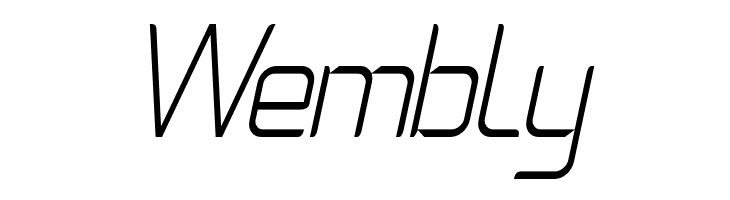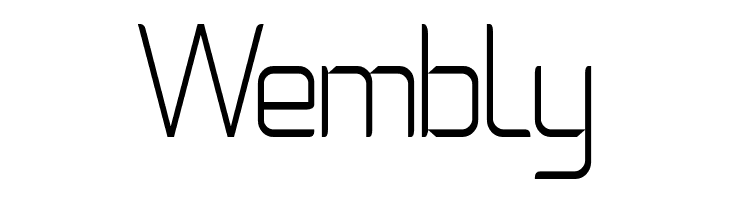
NatalisaThin Font
A sleek, modern font with thin, geometric lines and a minimalist aesthetic.
NatalisaThinItalic Font
A sleek, thin, italicized font with a modern and elegant design.